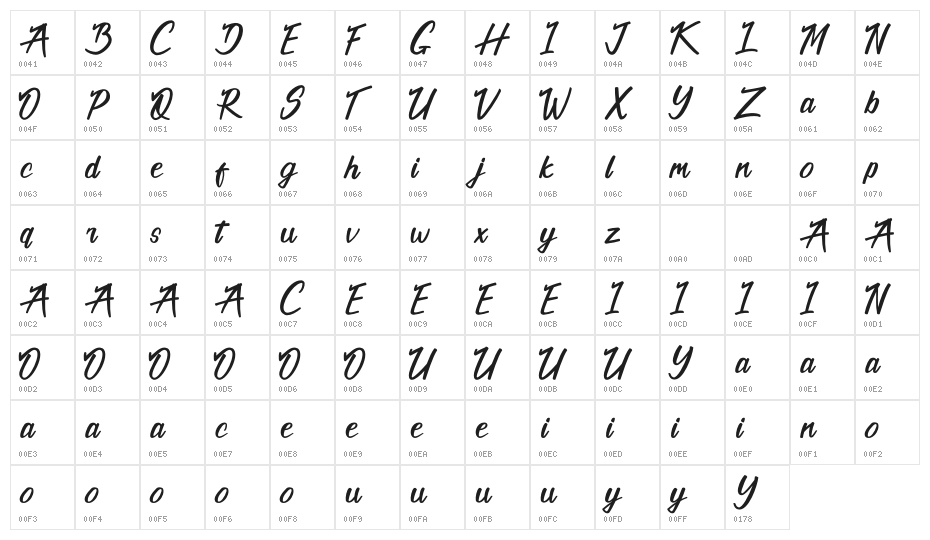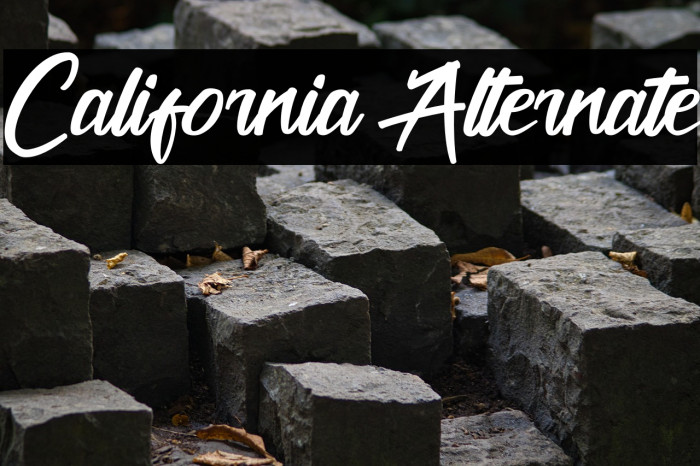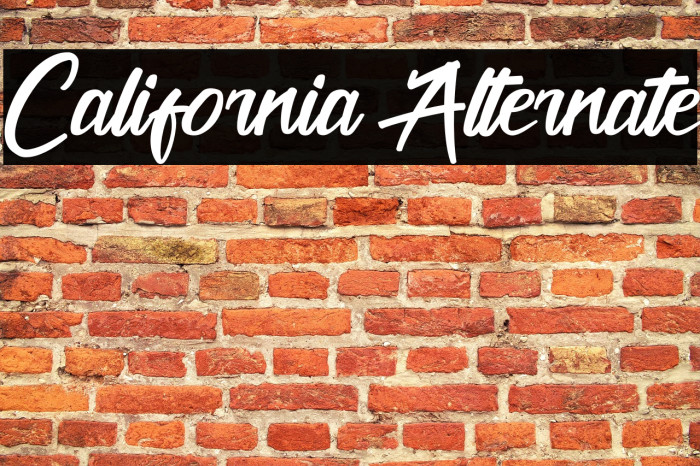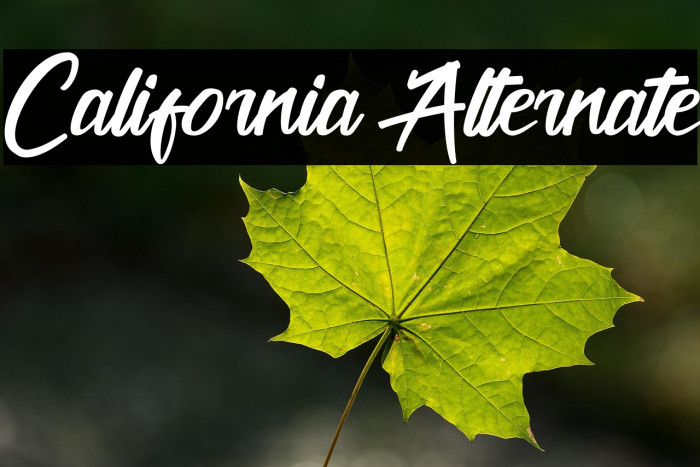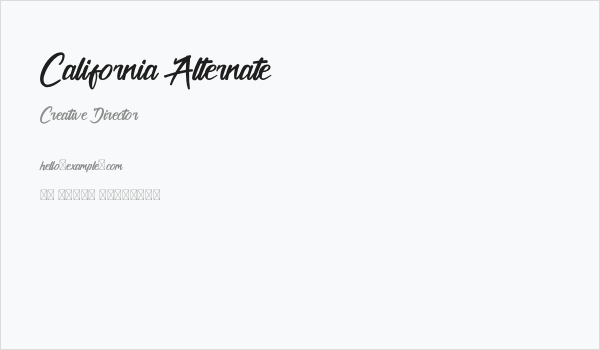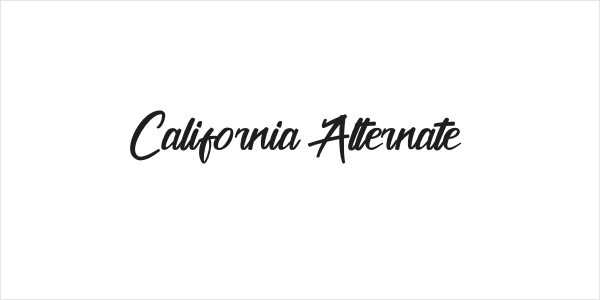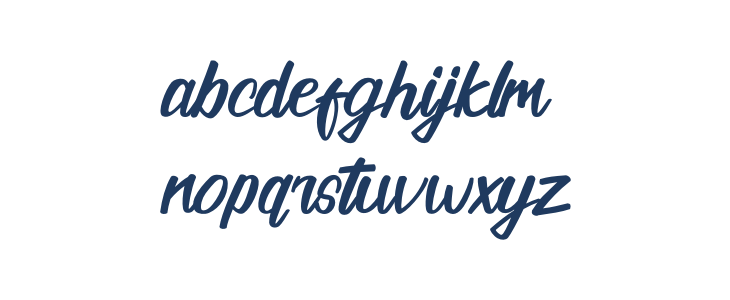
California Alternate Font
California Alternate Description
This font features a dynamic and flowing script style, characterized by its smooth, cursive letterforms that convey a sense of elegance and fluidity. The uppercase letters are bold and slightly slanted, giving them a sense of movement and energy. The lowercase letters maintain a consistent flow, with rounded edges and a slight slant, enhancing the overall graceful appearance. The font's strokes vary in thickness, adding a touch of sophistication and visual interest. This script style is reminiscent of handwritten calligraphy, making it suitable for projects that require a personal and artistic touch. The absence of special characters in the image suggests a focus on alphabetic characters, emphasizing its use in decorative text applications.
| Overall Style | Elegant, Artistic |